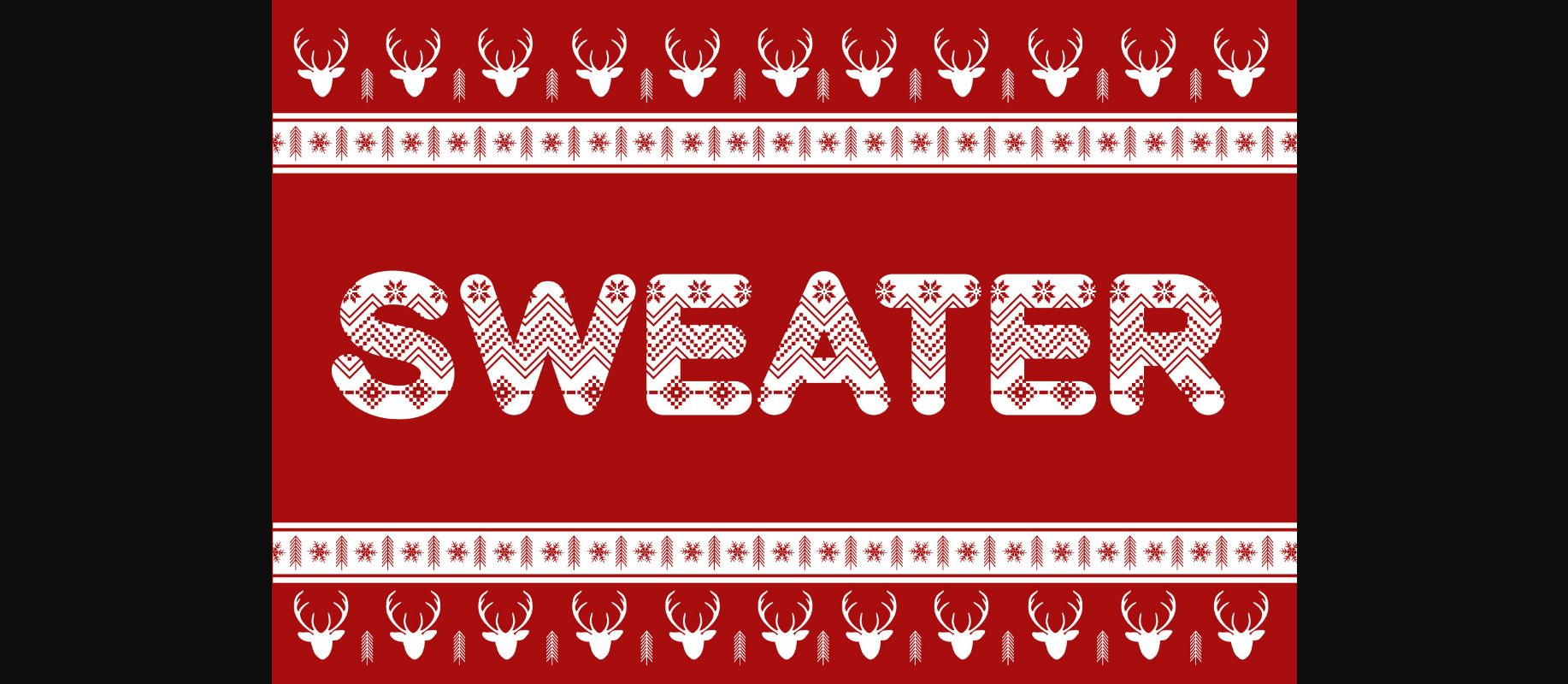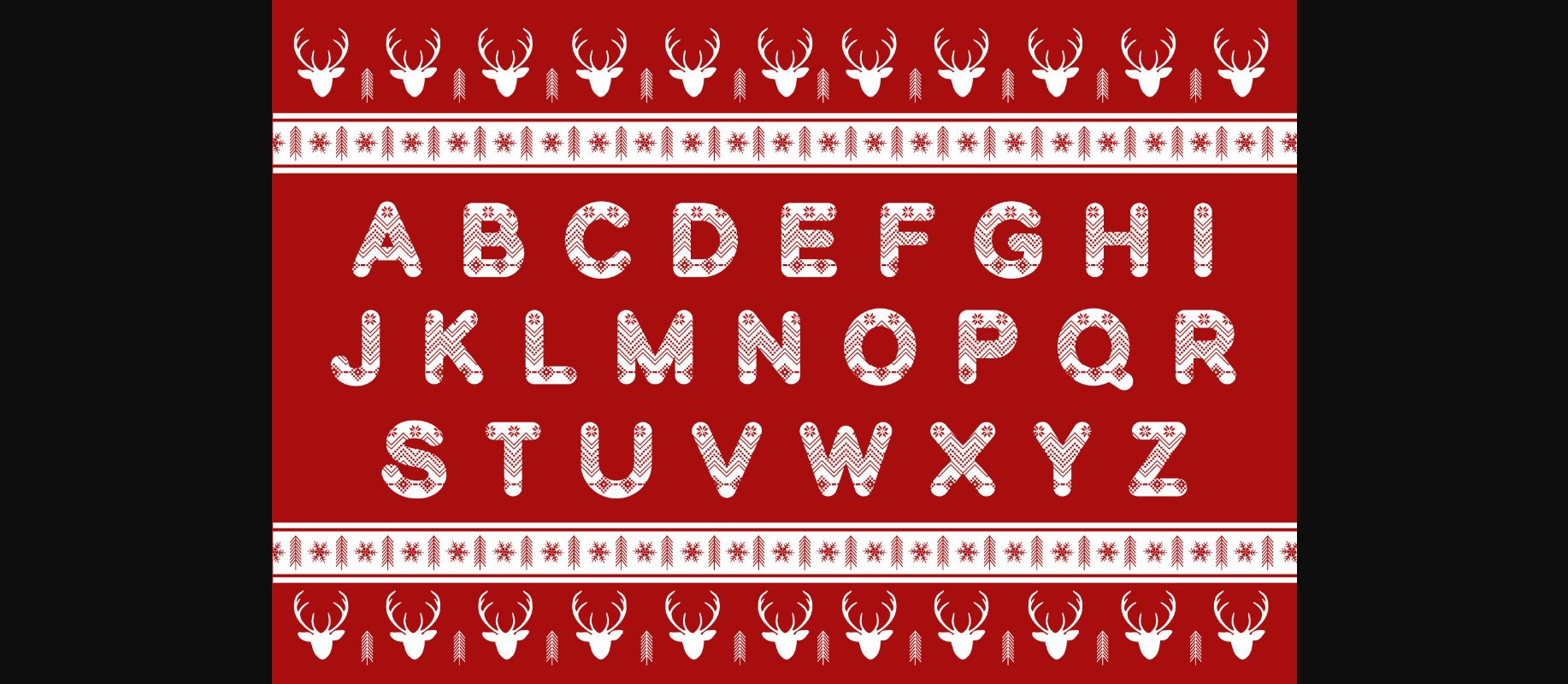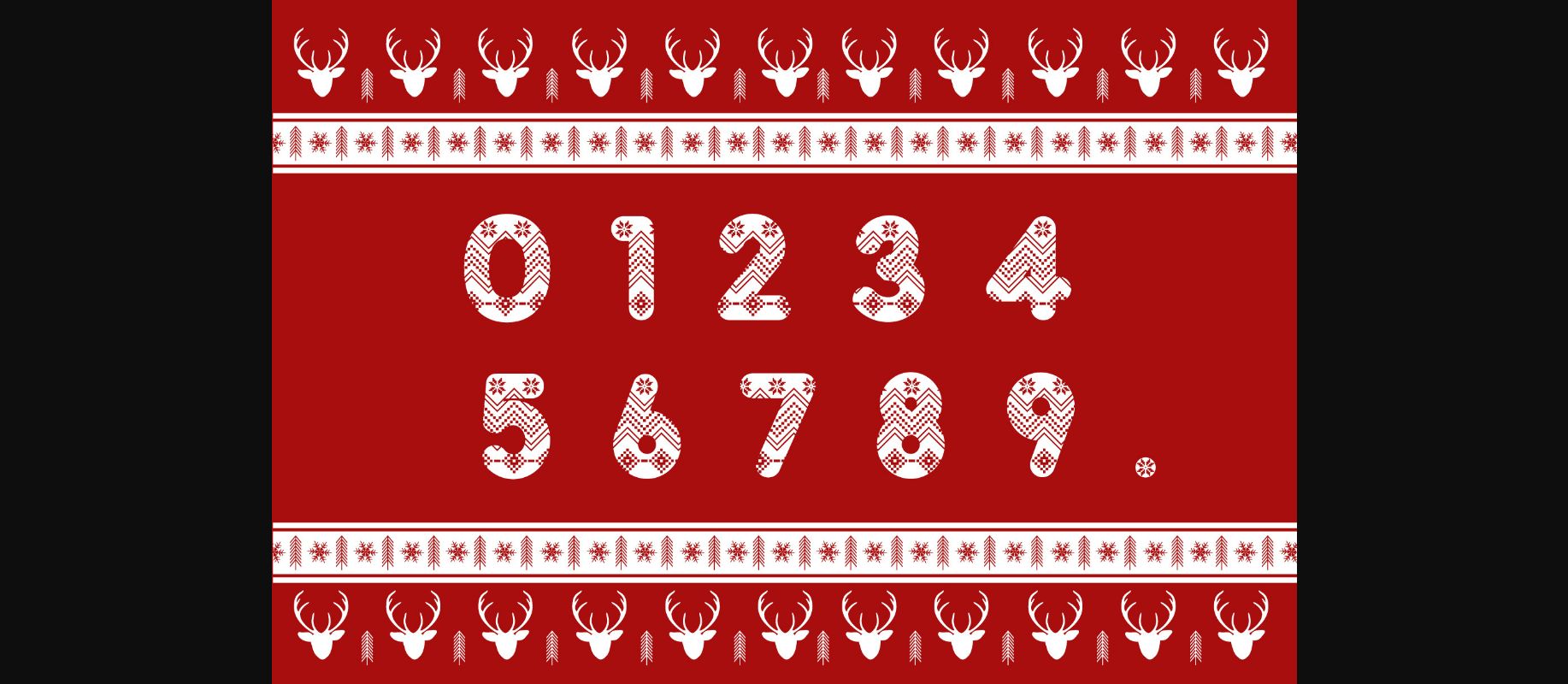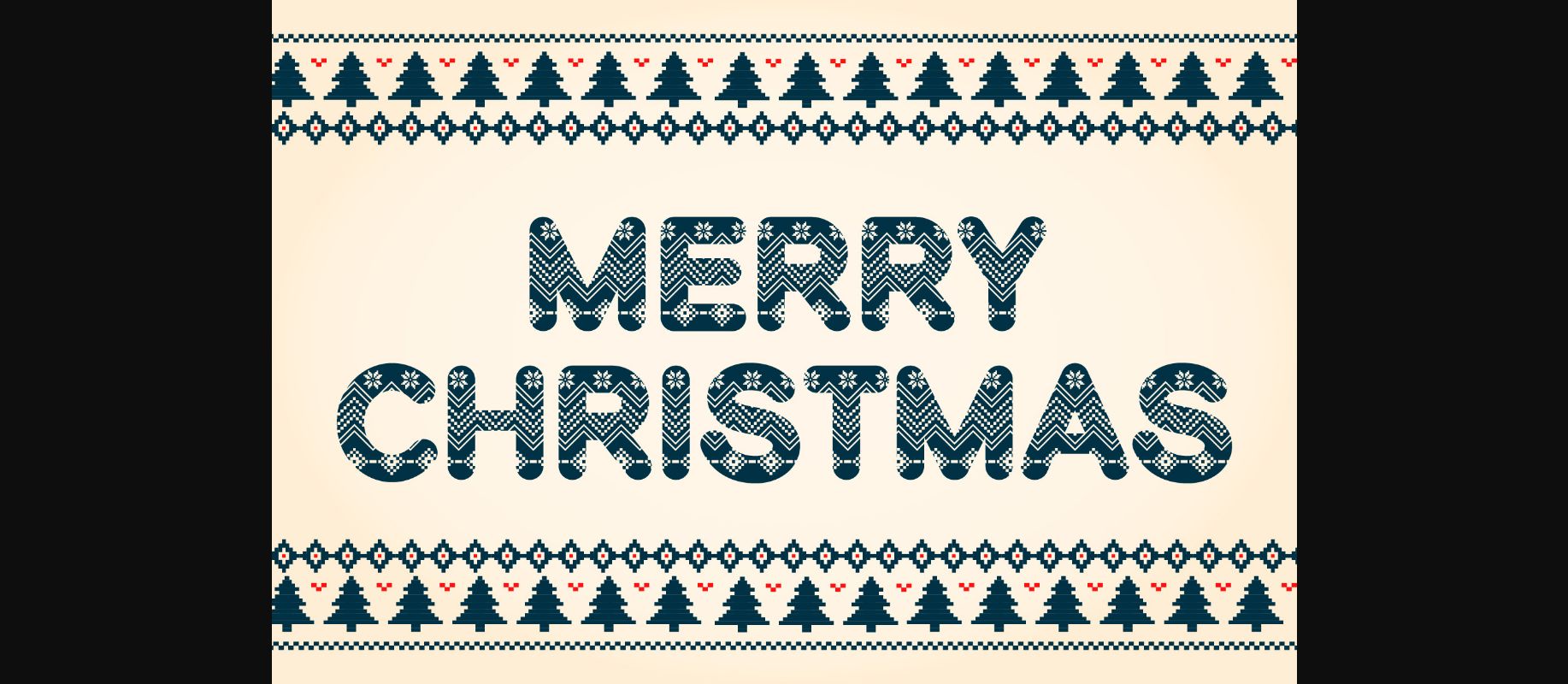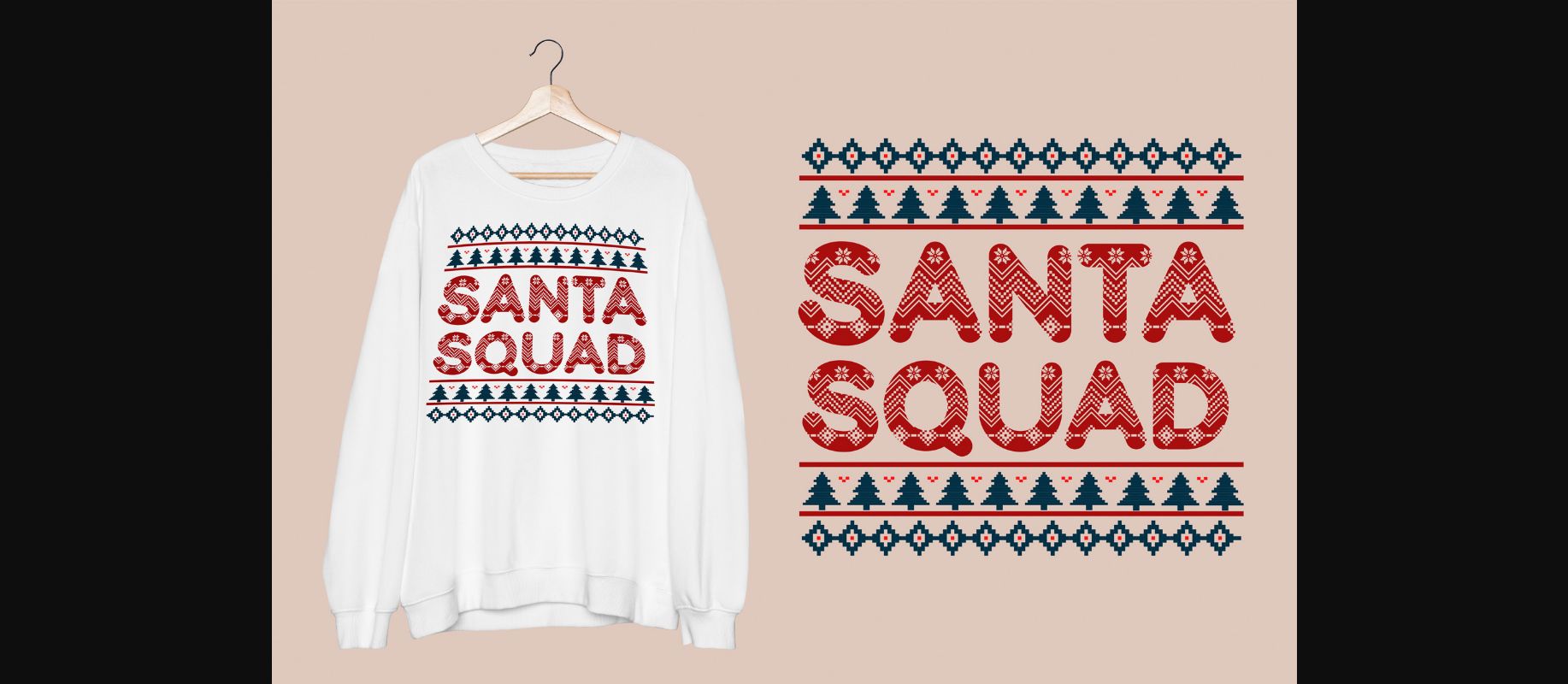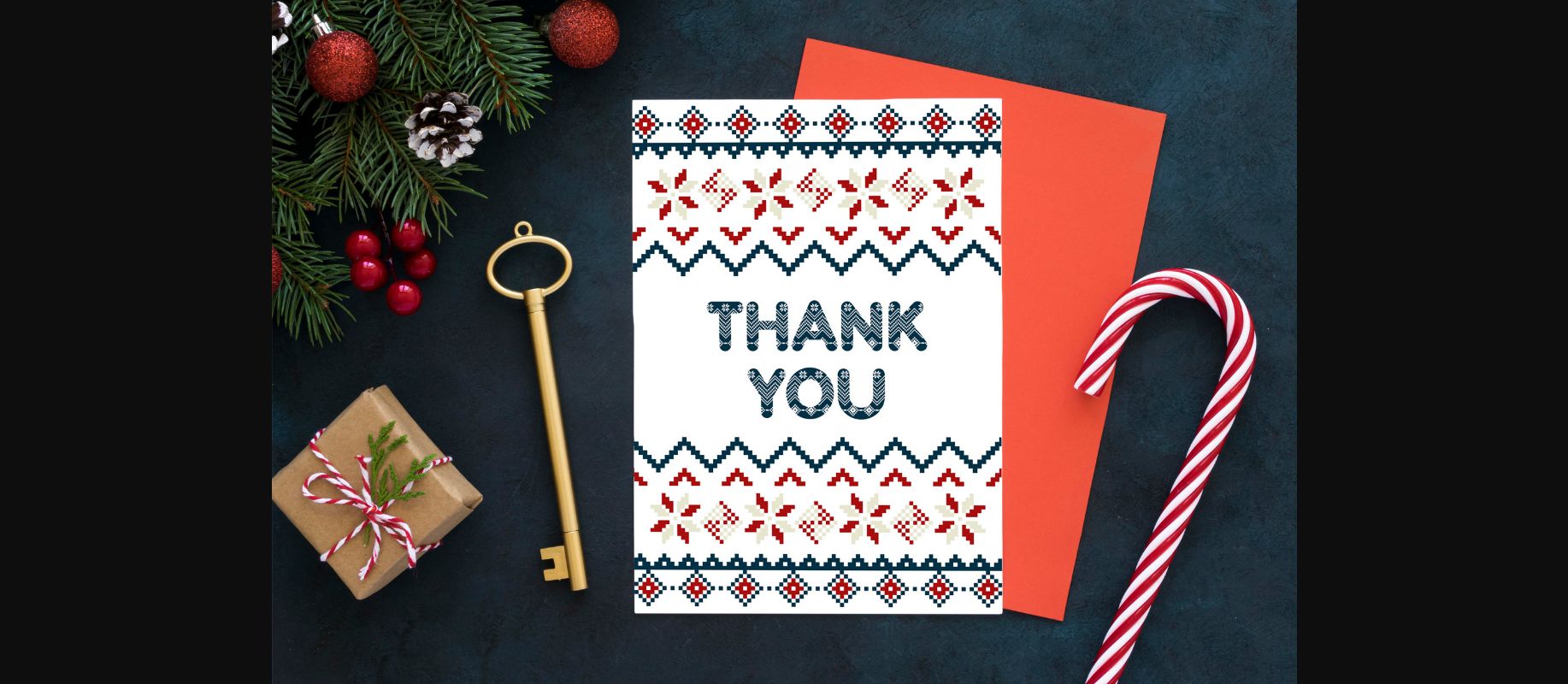
About Sweater Font
Sweater is a decorative font that is cute, bright, and fun. Ideal for Christmas or winter designs. Add this beautiful font to each of your creative ideas, and notice how it makes them stand out!